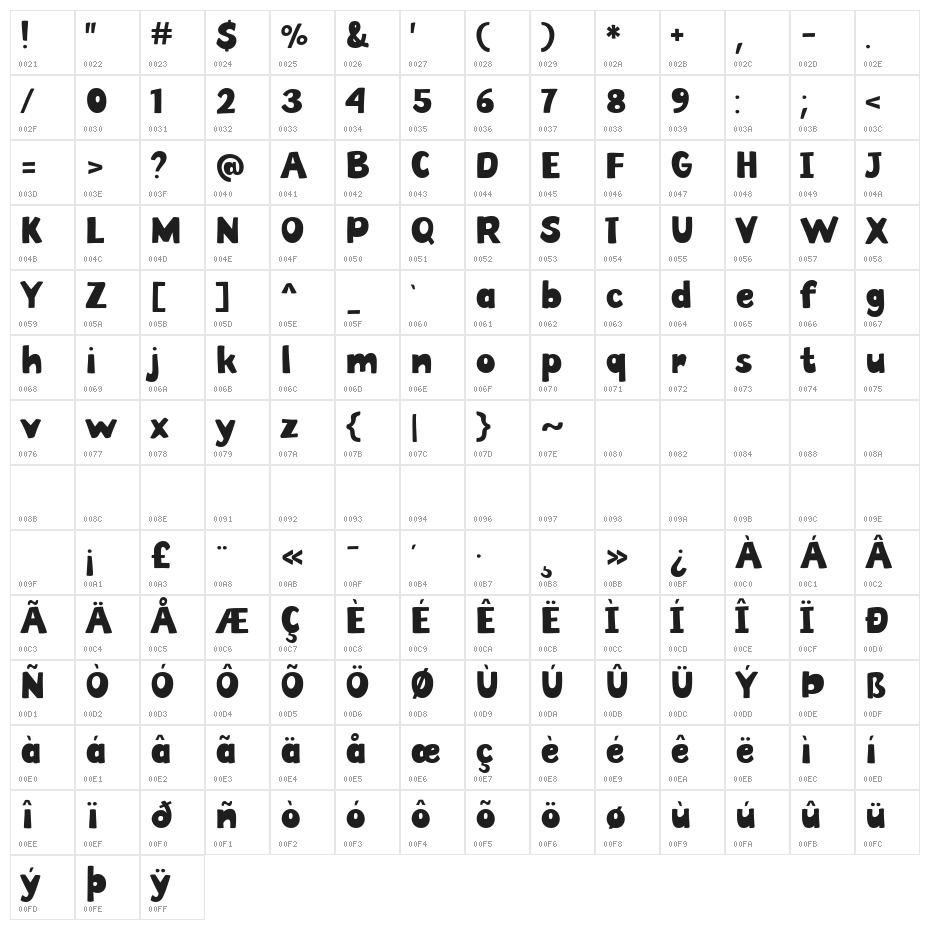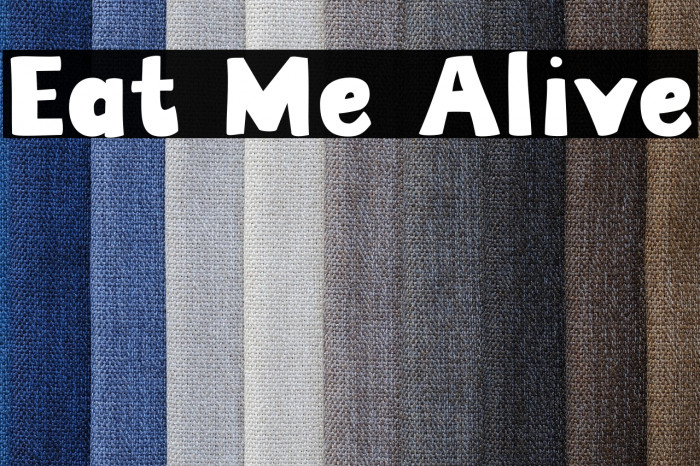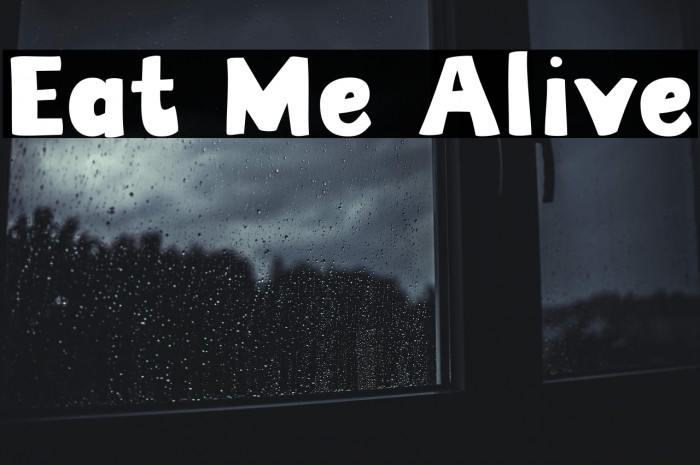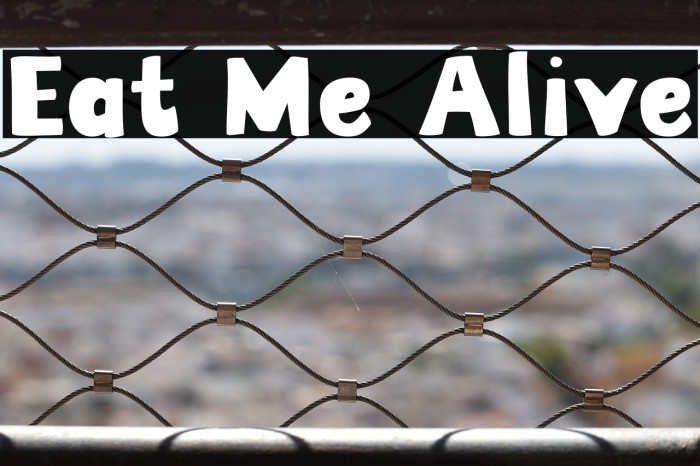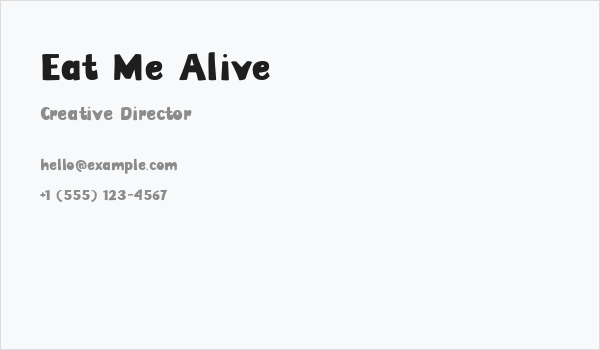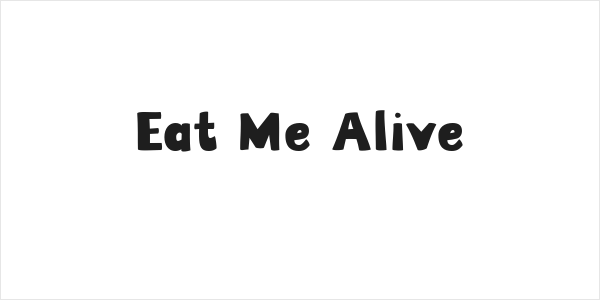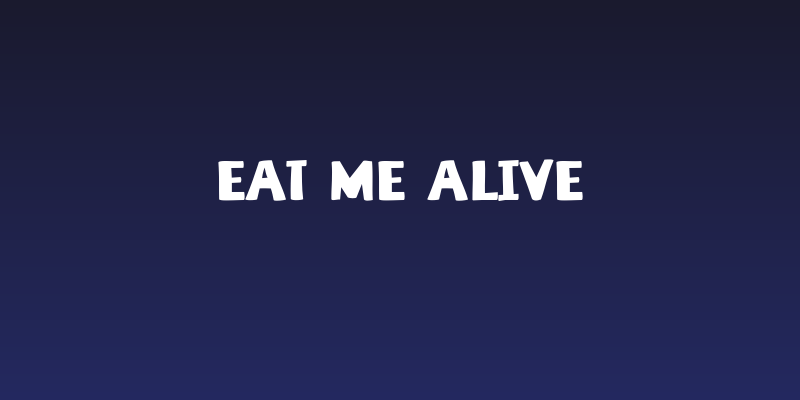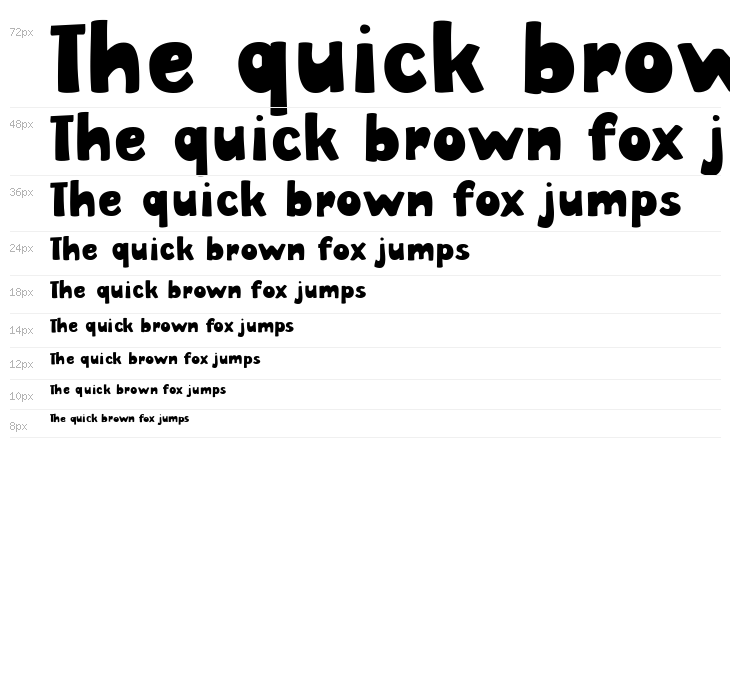
Eat Me Alive Font
Eat Me Alive Description
A playful, bold sans-serif typeface with irregular, hand-drawn letterforms and rounded edges, giving it a whimsical and informal appearance. The characters have a slightly uneven baseline and varying stroke thickness, contributing to a lively and energetic feel.
| Overall Style | Playful, Decorative, Handwritten |
| Use Case | Headlines, Posters, Logos, Children's materials |
| Proposed Projects | Children's books, posters, party invitations, comic titles, branding for playful products. |